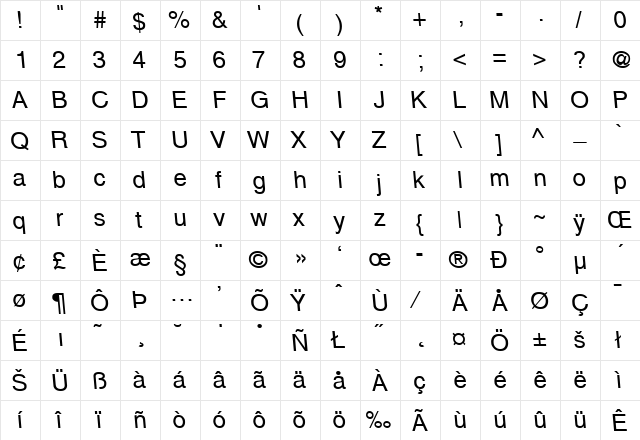
SchnellerMedium Regular
Design Context for SchnellerMedium Typeface
SchnellerMedium offers clean, dependable letterforms without strong stylistic allegiance, making it a practical choice for designers who need flexibility.
Pro Tip: Pair SchnellerMedium with a font of contrasting weight or personality to build a more expressive typographic hierarchy.